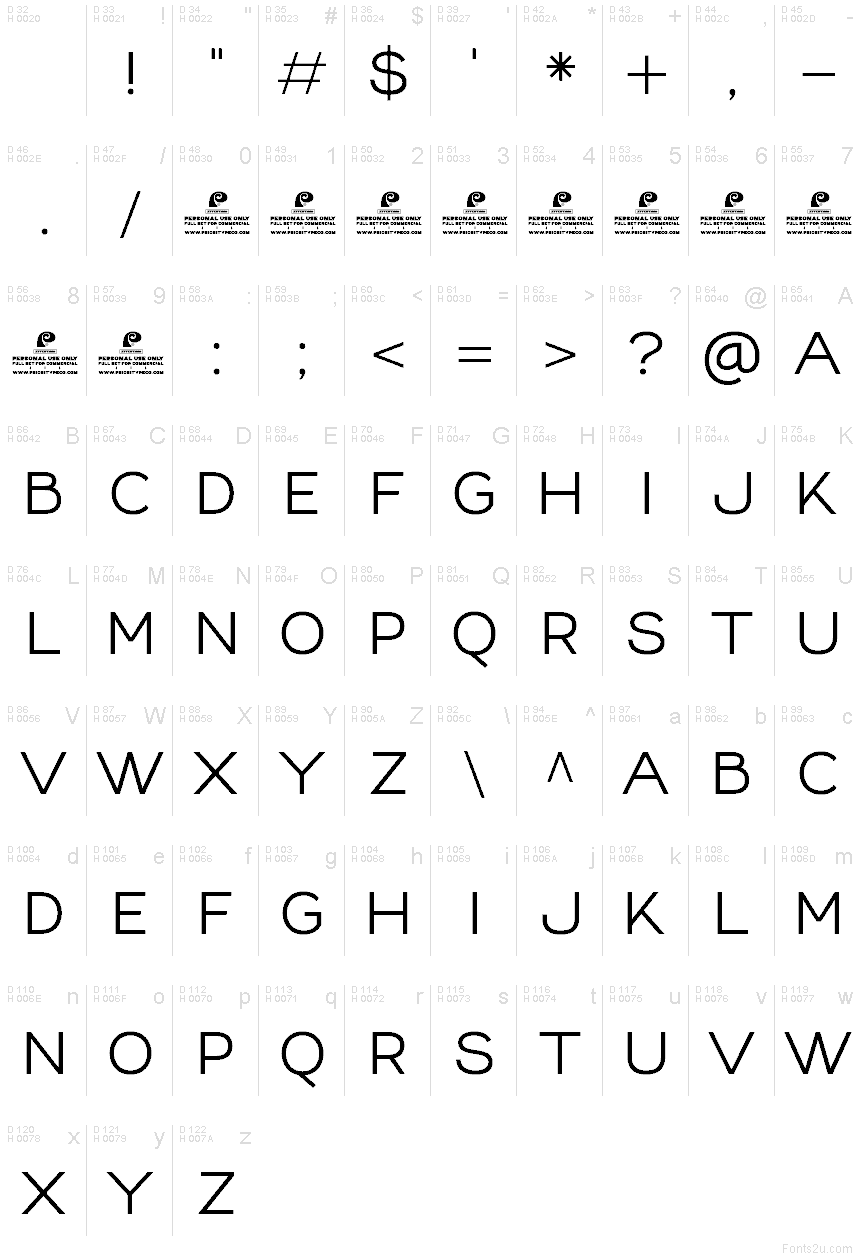
Loede DEMO Regular
Loede font by Prioritype Co is a free rounded sans serif typeface. Its signature look comes from smooth, tubular strokes and softened corners that feel friendly without getting cutesy. Letters sit with even rhythm and generous inner space, so headlines read cleanly while carrying a warm, modern glow—like neon tubing drawn with precision.
Using Loede, you can bring approachable polish to tech branding, wellness packaging, app onboarding screens, storefront signage, event posters, and social graphics. This free font holds shape at large sizes and stays legible when scaled down. For body copy, pair it with a neutral grotesque set a size smaller to keep attention on Loede’s bright, rounded headlines.